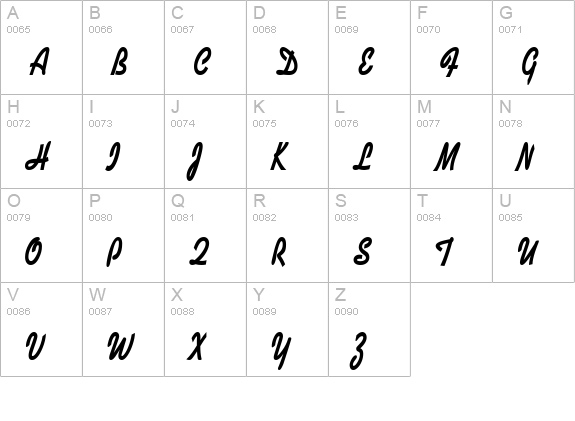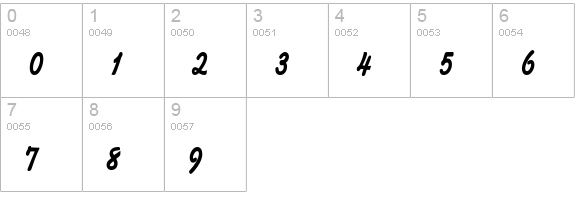
DinerScriptCondensed Bold is a strong, high-contrast variant in the DinerScriptCondensed typeface family \xE2\x80\x94 well suited to headlines, attention-grabbing titles, and strong calls-to-action.
DinerScriptCondensed Bold font is a striking and eye-catching typeface that exudes retro charm and vintage appeal. Its bold and condensed design makes it perfect for headlines, titles, and other display purposes where you want to make a statement. The thick strokes and distinctive letterforms give this font a unique personality that will make your designs stand out. Best of all, DinerScriptCondensed Bold font is available for free download at FontsMarket.com. Whether you're working on a poster, logo, or any other creative project, this font will add a touch of nostalgia and style. Don't miss out on this opportunity to enhance your designs with this versatile and dynamic typeface. Download it today and start creating with DinerScriptCondensed Bold!